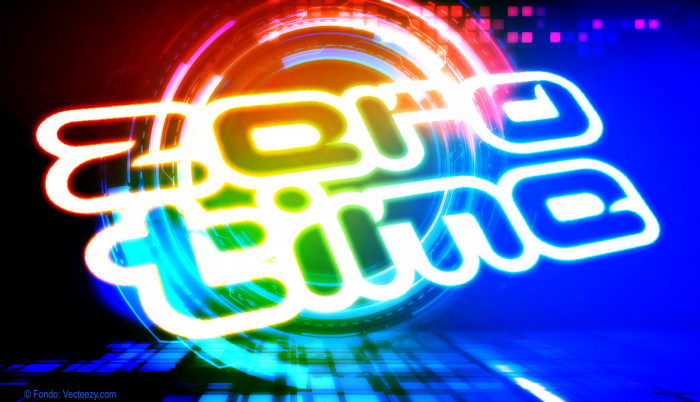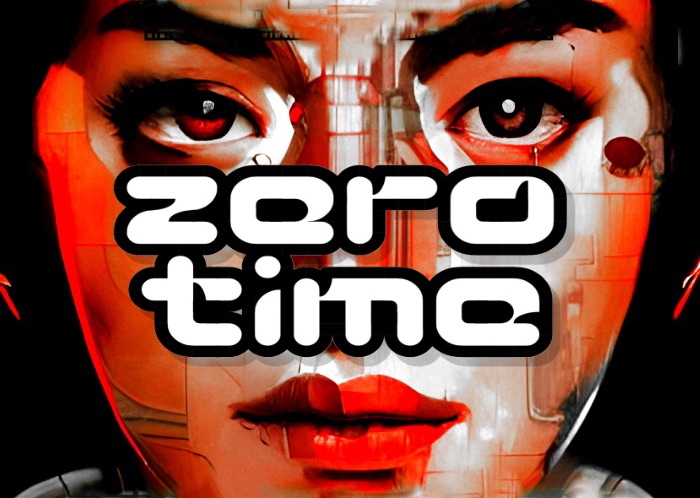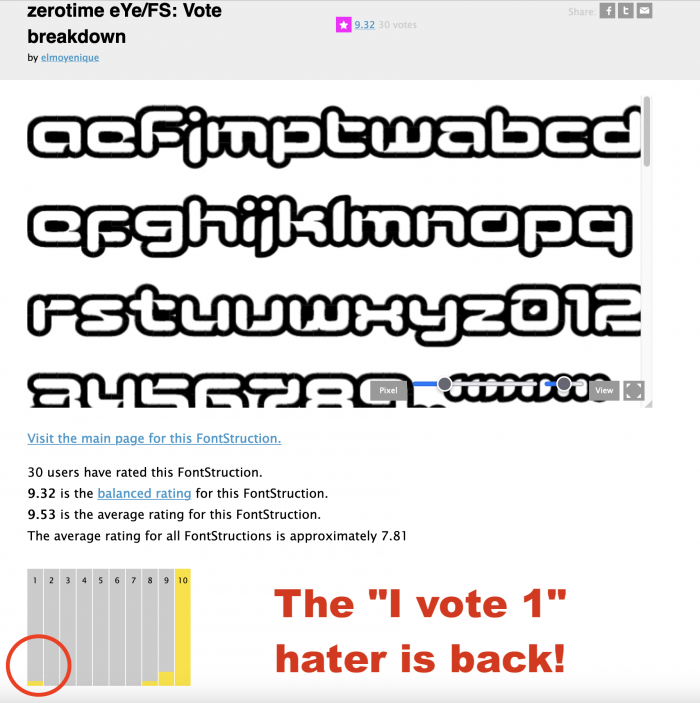
Lowercase font with some alternates (a, e, f, j, m, t, w) in the uppercase. The "tt" & "ff" ligatures are at the ""fi" & "ff" glyphs.
I wonder if an alt p that is the q flipped would be possible?
@BWM: Here it is. Actually, I had thought so, but that second "p" had been left out.
Very appealing design you got here, evocative of a high technological sophistication, and structural quite clever. Instant Favo!
@elmoyenique - Wonderful outline design!  This has a very mid-to-late '90s vibe about it.  :^)
Lovely futuristic bubble design~
Beautiful outline font. Bonus points for those 'cuts'!
I wonder if capitals can be done here as in its pixelized version? Of course, the alternate glyphs would have to be moved (They can go into the Private Use Area if possible).
Flipped brick version?